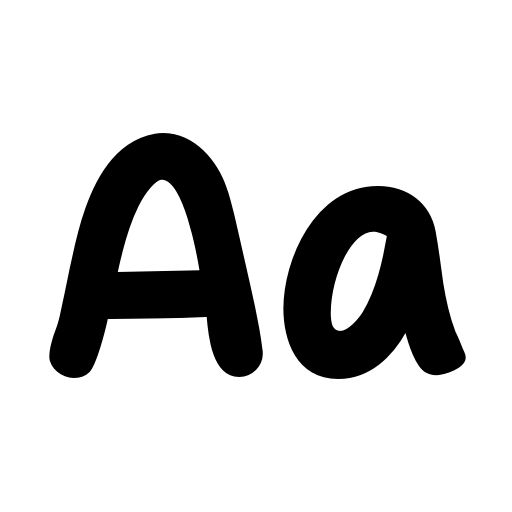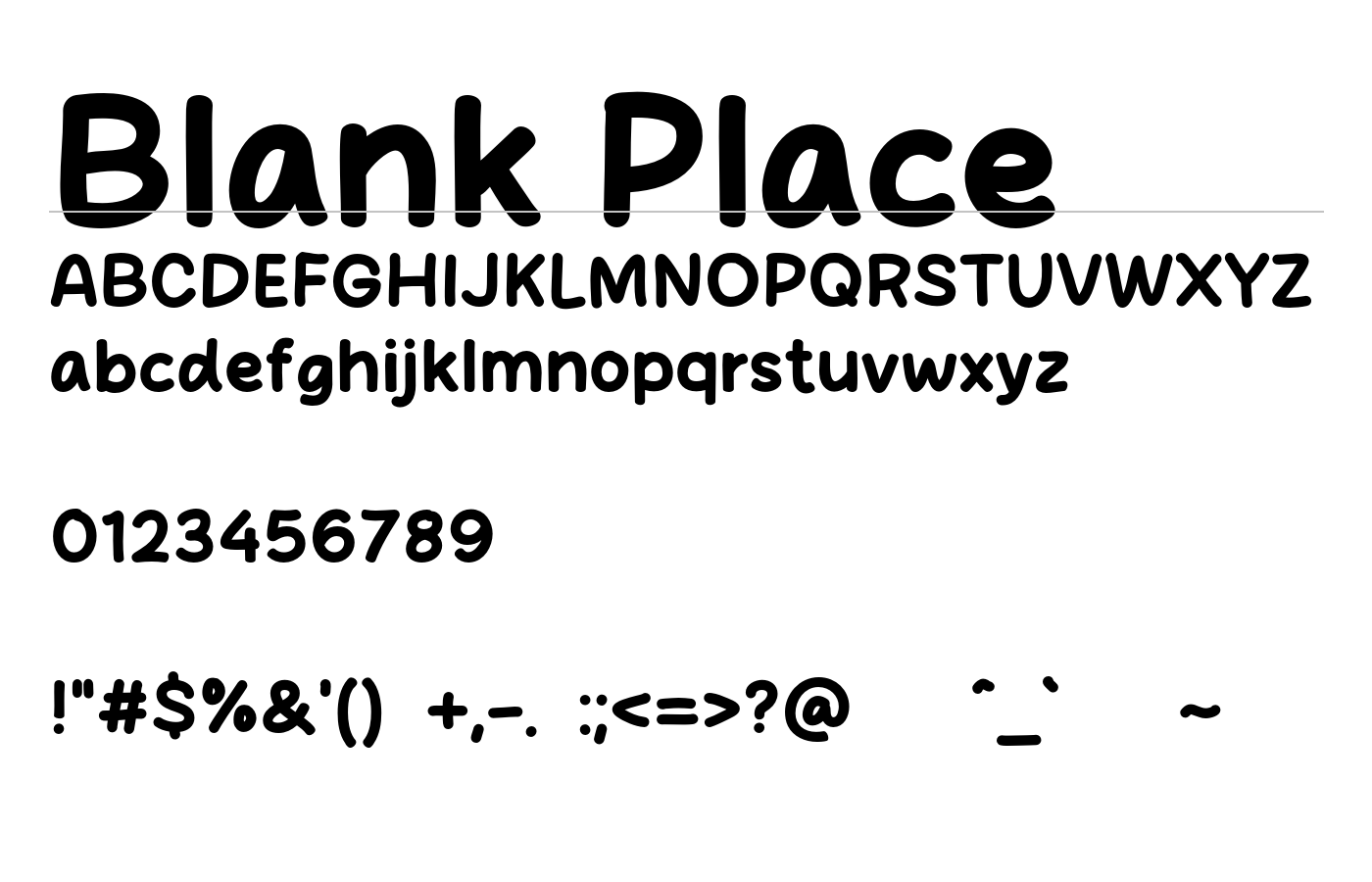
Blank Place is a playful and casual sans serif font with rounded, slightly irregular letterforms that give it a hand-drawn, friendly feel. Its medium weight and open spacing make it highly readable, perfect for informal designs, children's materials, and fun branding projects. This font works well in logos, headlines, and packaging that aim to convey warmth, approachability, and creativity.
Blank Place Font
About Blank Place Font